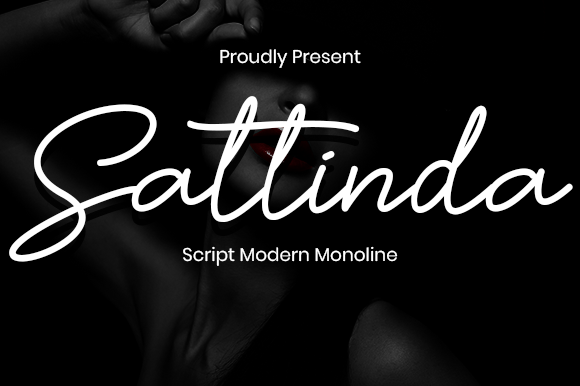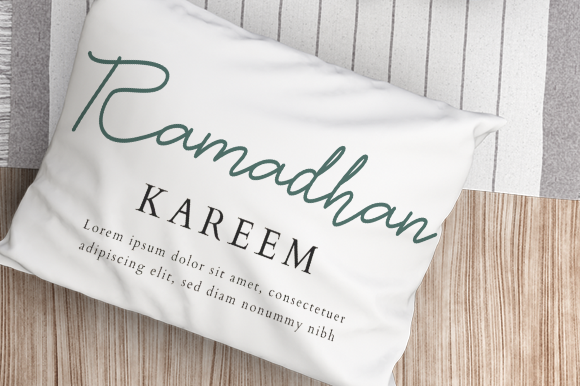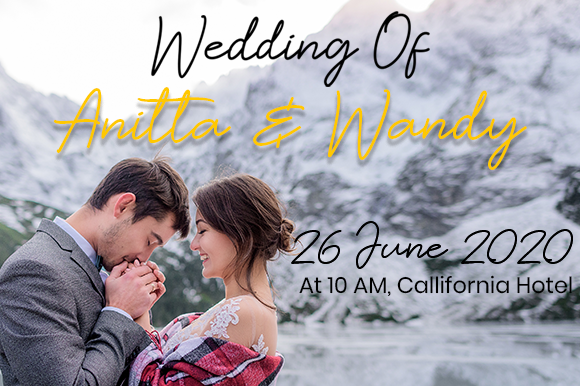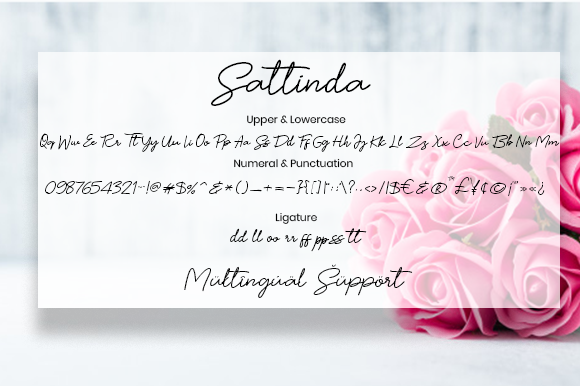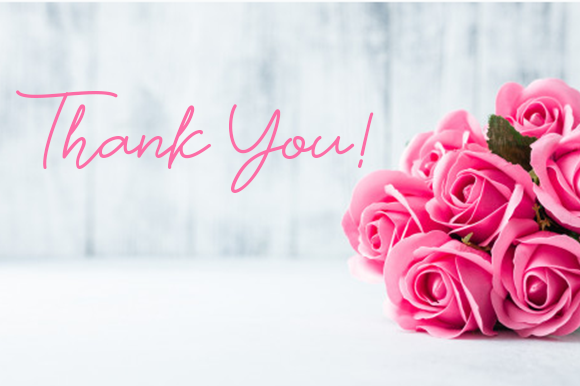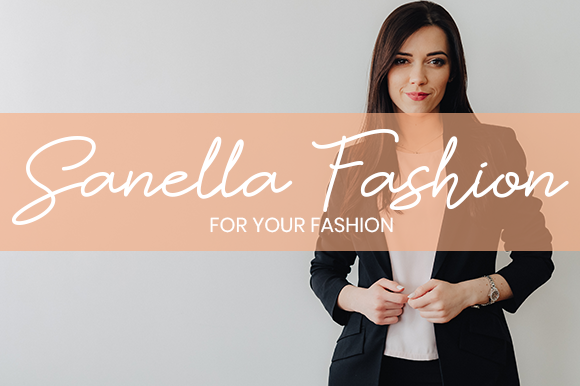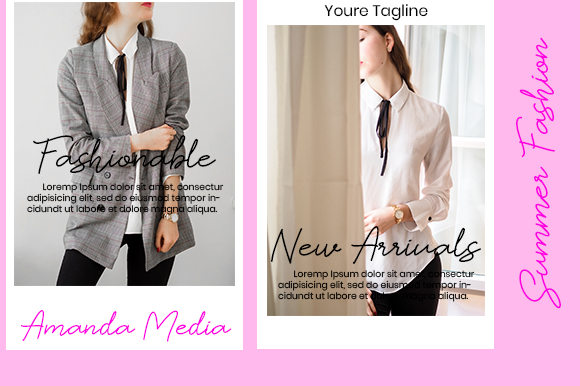
Sattinda Font
About Sattinda Font
Sattinda is a thin and elegant handwritten font that exudes a charming and joyful style. With its delicate letterforms and playful curves, this font is designed to elevate your designs and add a touch of elegance.
The thin and graceful nature of Sattinda lends itself well to a variety of design projects. Whether you’re creating wedding invitations, branding materials, product packaging, or social media graphics, this font can bring a sense of sophistication and refinement to your work.
Sattinda’s cute and joyful style adds a playful element to your designs. It has a whimsical charm that can capture attention and create a delightful visual experience for your audience. Whether you’re designing greeting cards, children’s books, or any project that requires a lighthearted and cheerful touch, Sattinda can bring that sense of joy to life.
The versatility of Sattinda extends to various design styles and themes. Its elegance and simplicity make it suitable for both modern and classic designs. It can complement minimalistic aesthetics, as well as more intricate and decorative styles, adding a touch of whimsy and personality to your creations.
In addition to its aesthetic appeal, Sattinda is also highly legible, ensuring that your message is conveyed clearly to your audience. Its well-crafted letterforms maintain readability even at smaller sizes, making it suitable for both headlines and body text.
Whether you’re designing for personal or professional purposes, Sattinda offers a versatile and elegant choice. It can be used for various creative projects, from wedding stationery to branding materials, from social media graphics to children’s designs. The cute and joyful style of Sattinda will bring a sense of delight and sophistication to your work, making it stand out and captivate your audience.
Embrace the thin and elegant charm of Sattinda and let its cute and joyful style elevate your designs to new levels of creativity and visual appeal.